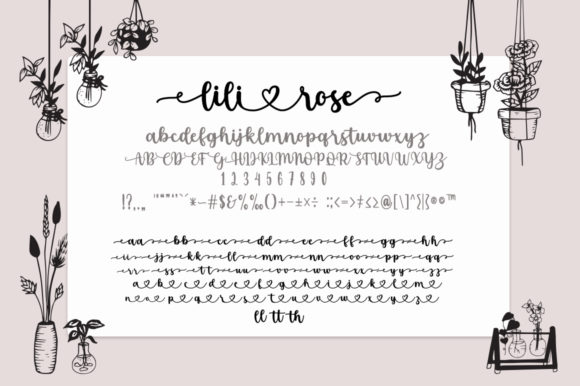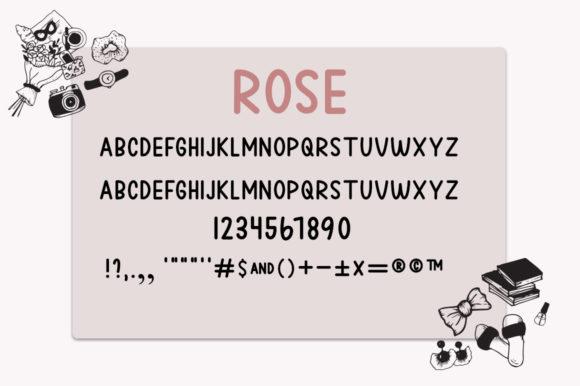
Lilirose Font
Lilirose is an elegant and dainty duo font (handwritten and sans serif), that features sweet and delicate swashes. This original look will appeal to a wide range of crafty ideas, from letterheads and titles, to stationery. This font is PUA encoded which means you can access all of the glyphs and swashes with ease!